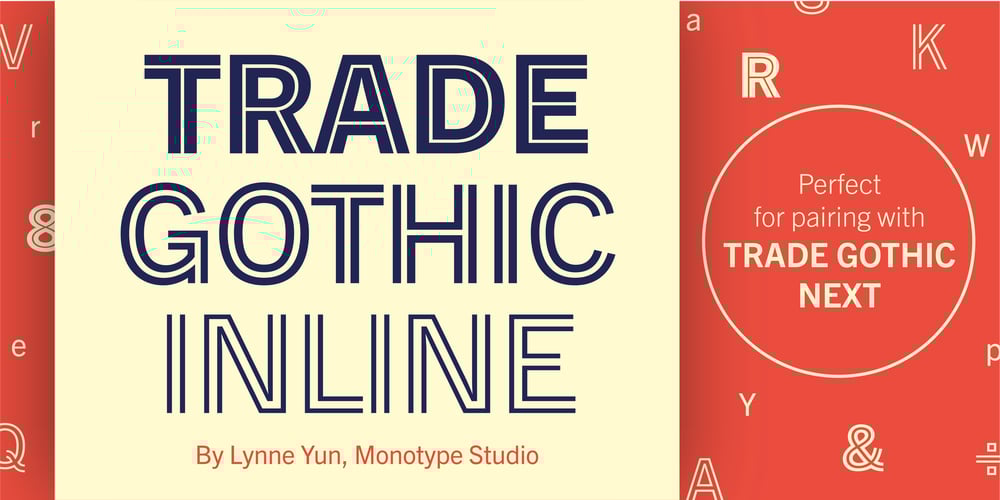
Trade Gothic Inline Font Family was designed by Jackson Burke, Lynne Yun and published by Linotype. Trade Gothic Inline contains 5 styles and family package options. Trade Gothic inline is a quirky display companion for Trade Gothic Next, offering five different voices, and a whole lot of personality. The lighter weights are graceful and elegant, embracing negative space to give the sense that the letters are halfway to disappearing. Designer Lynne Yun has incised the darker weights with a super thin inline that emphasises the heaviness of the letters, and creates a reassuring chunkiness. “If I kept the inlines the same, it created a lot of visual noise,” explains Yun. “I wanted each weight to be different enough, so in the end the weight and width of the letters was increasing and decreasing in size, and the inlines were too. The black is almost like an extra black, because the inline is smaller. It’s about trying to have different voices for each weight.” Trade Gothic Inline is available in five weights, from light to black.